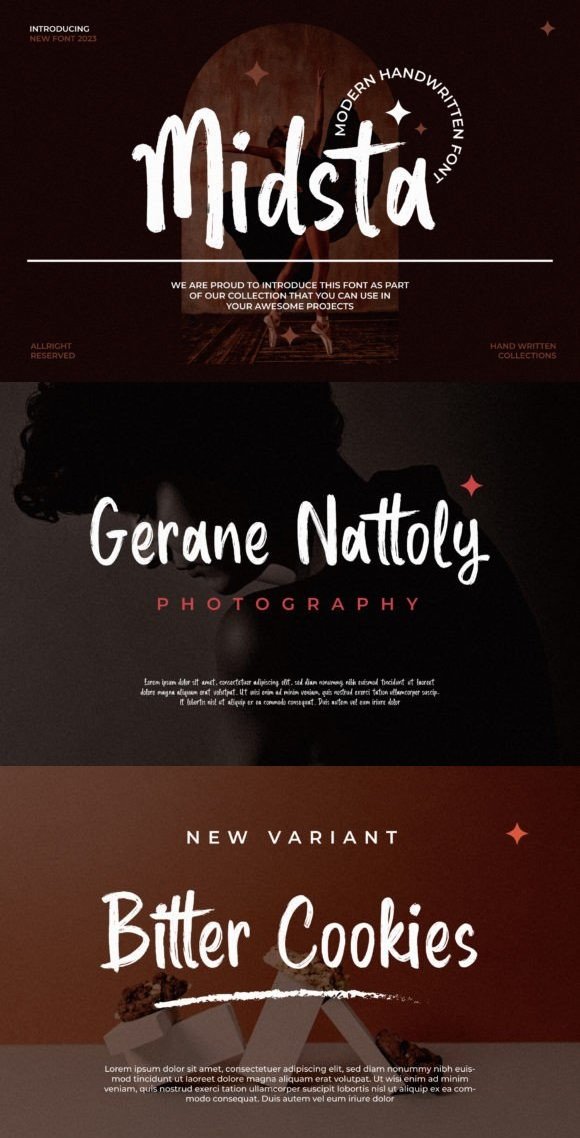
Midsta is a casual, handwritten brush script font that radiates warmth and authenticity. Its fluid strokes and natural flow capture the spontaneity of hand lettering, making it perfect for personal projects, branding, and social media graphics. With Midsta, you can add a touch of genuine charm to your designs effortlessly.